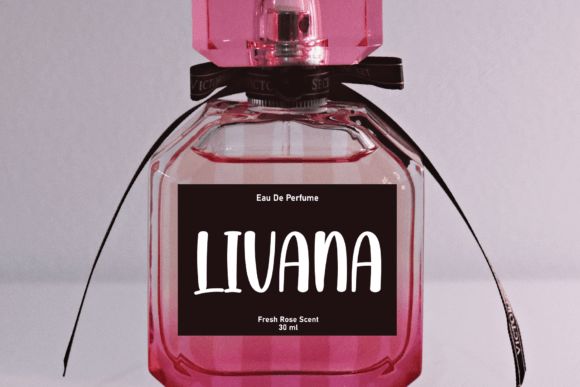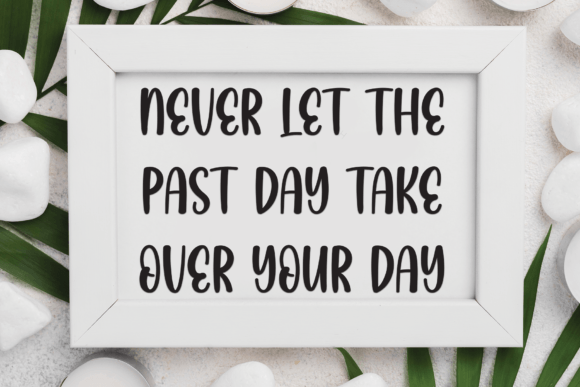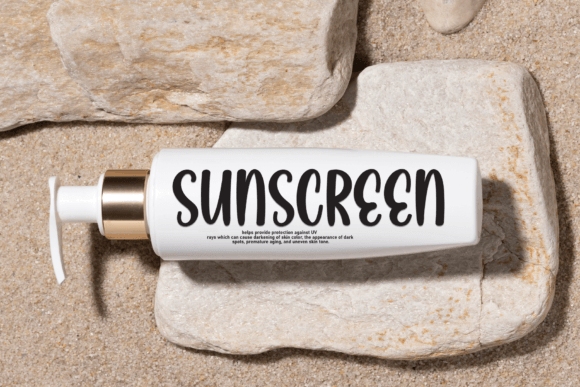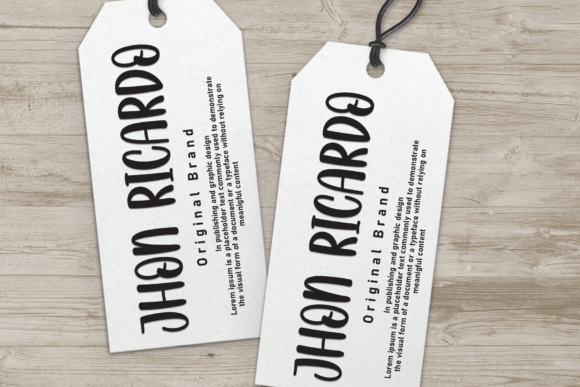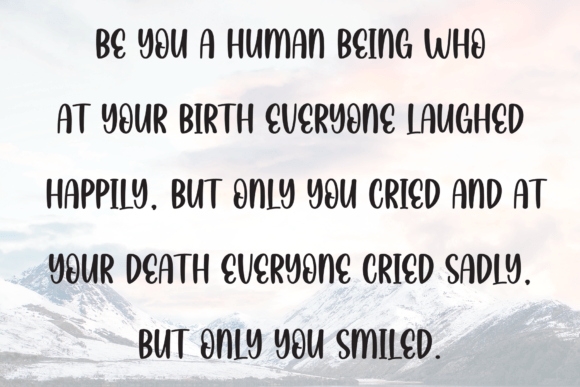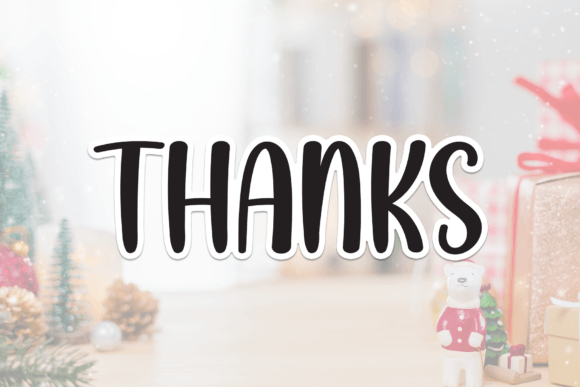
Introducing Christmas Day Font: A Sweet and Friendly Handwritten Delight
Are you searching for a font that embodies the warmth and joy of the holiday season? Look no further than Christmas Day Font, a sweet and friendly handwritten font that’s perfect for a wide range of design projects. With its natural and unique style, Christmas Day Font is incredibly versatile and can be used in a multitude of creative ways. The only limit is your imagination!
What Makes Christmas Day Font So Special?
Christmas Day Font is a beautifully crafted handwritten font that’s designed to evoke the feeling of a warm and cozy Christmas morning. Its sweet and friendly style makes it perfect for use in holiday-themed designs, such as Christmas cards, gift tags, and festive social media graphics. But what really sets Christmas Day Font apart is its unique and natural style, which makes it incredibly fitting for a wide range of design projects beyond just holiday-themed designs.
Whether you’re a designer, crafter, or DIY enthusiast, Christmas Day Font is a fantastic addition to your font collection. Its versatility and charm make it perfect for use in a variety of creative projects, from handmade crafts and DIY tutorials to digital designs and marketing materials.
Uses for Christmas Day Font
So, what can you use Christmas Day Font for? The possibilities are endless! Here are just a few ideas to get you started:
- Holiday-themed designs: Use Christmas Day Font to create festive Christmas cards, gift tags, and social media graphics that are sure to spread holiday cheer.
- Handmade crafts: Add a personal touch to your handmade crafts, such as knitted items, woodwork, and jewelry, with Christmas Day Font.
- DIY tutorials: Use Christmas Day Font to create eye-catching titles and headings for your DIY tutorials and blog posts.
- Digital designs: Incorporate Christmas Day Font into your digital designs, such as printable art, planners, and organizers.
- Marketing materials: Use Christmas Day Font to add a touch of personality to your marketing materials, such as brochures, flyers, and business cards.
Why Designers and Crafters Love Christmas Day Font
So, why do designers and crafters love Christmas Day Font? Here are just a few reasons:
- Unique and eye-catching: Christmas Day Font is a one-of-a-kind font that’s sure to grab attention and make your designs stand out.
- Easy to read: Despite its unique and handwritten style, Christmas Day Font is incredibly easy to read, making it perfect for use in a variety of design projects.
- Versatile: Christmas Day Font can be used in a wide range of design projects, from digital designs to handmade crafts.
- High-quality: Christmas Day Font is a high-quality font that’s designed to deliver exceptional results.
Tips for Using Christmas Day Font
Here are a few tips for using Christmas Day Font in your design projects:
- Experiment with different sizes: Christmas Day Font looks great in a variety of sizes, from small and delicate to large and bold.
- Pair with other fonts: Try pairing Christmas Day Font with other fonts to create a unique and eye-catching combination.
- Use in combination with images: Christmas Day Font looks great when used in combination with images, such as photographs and illustrations.
- Don’t be afraid to get creative: The beauty of Christmas Day Font is that it’s incredibly versatile, so don’t be afraid to get creative and try new things!
In conclusion, Christmas Day Font is a sweet and friendly handwritten font that’s perfect for designers and crafters looking to add a touch of personality to their design projects. With its unique and natural style, Christmas Day Font is incredibly versatile and can be used in a wide range of creative ways. So why not give it a try and see what amazing designs you can create?